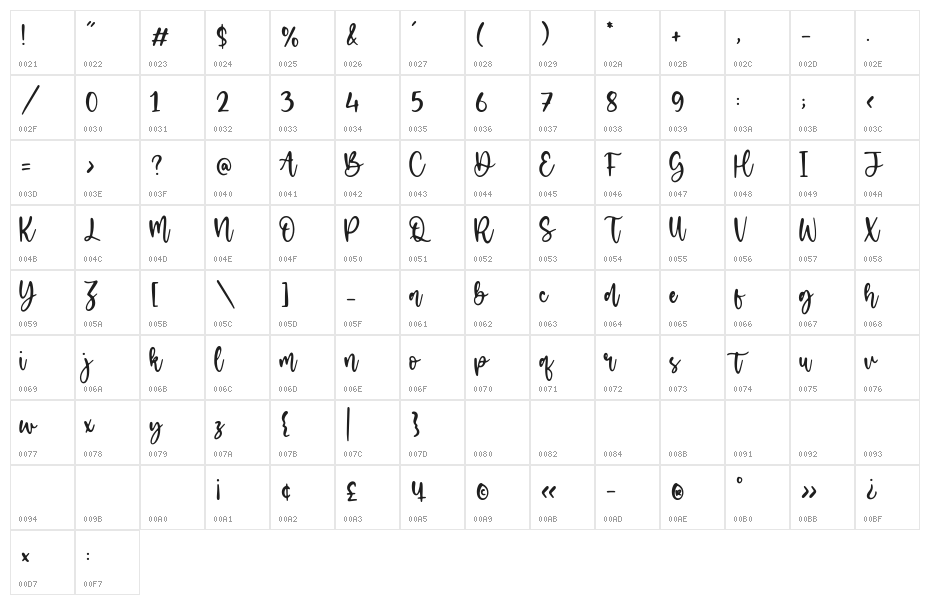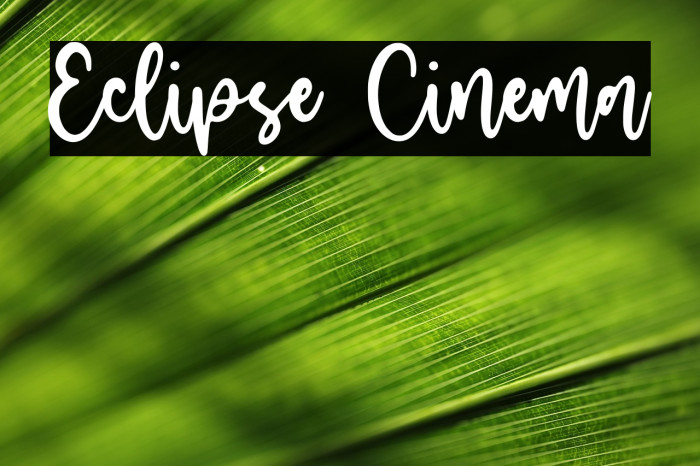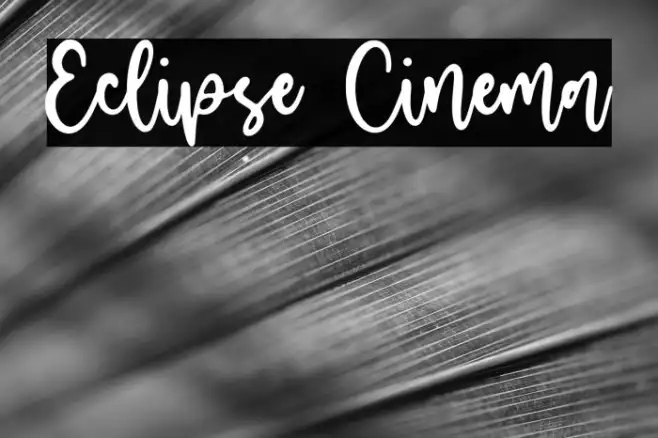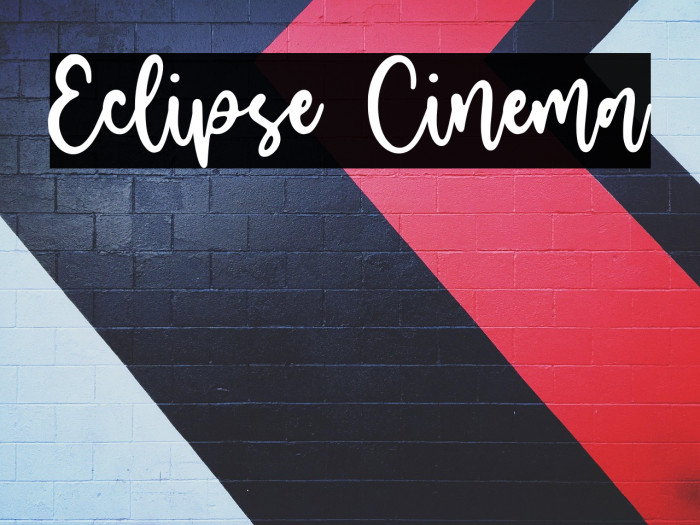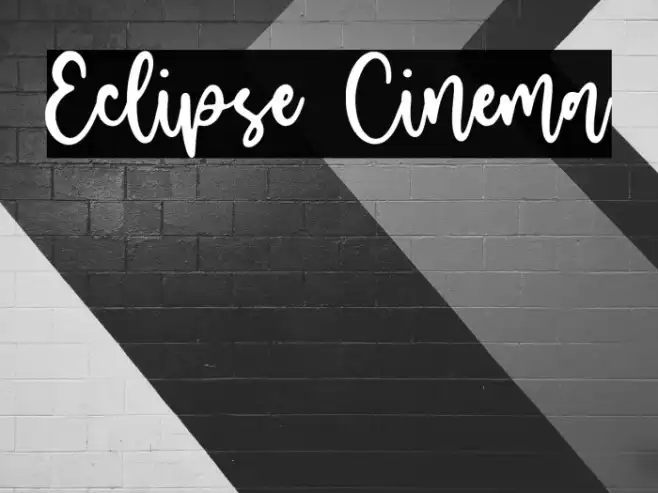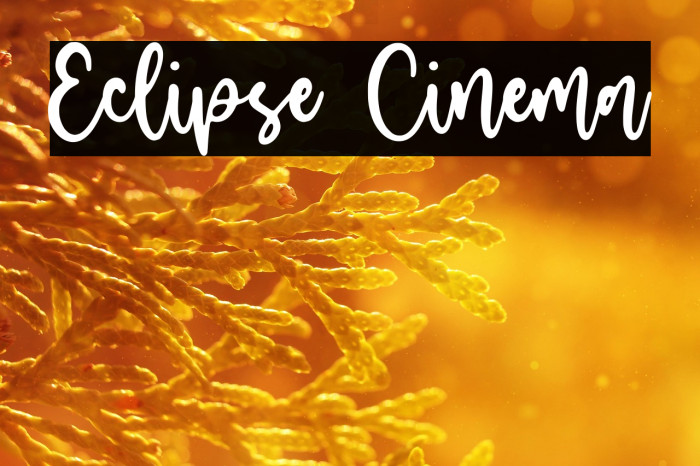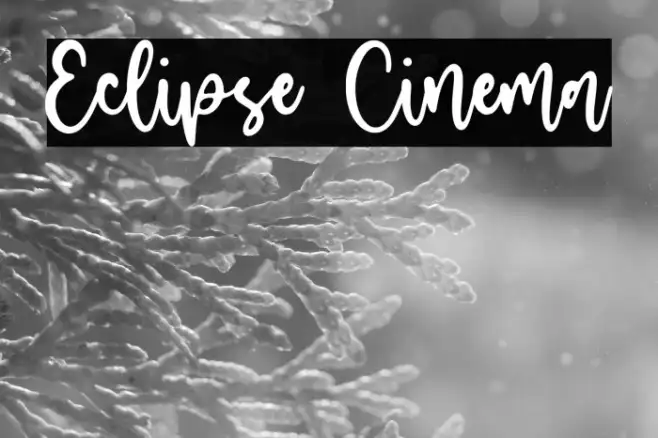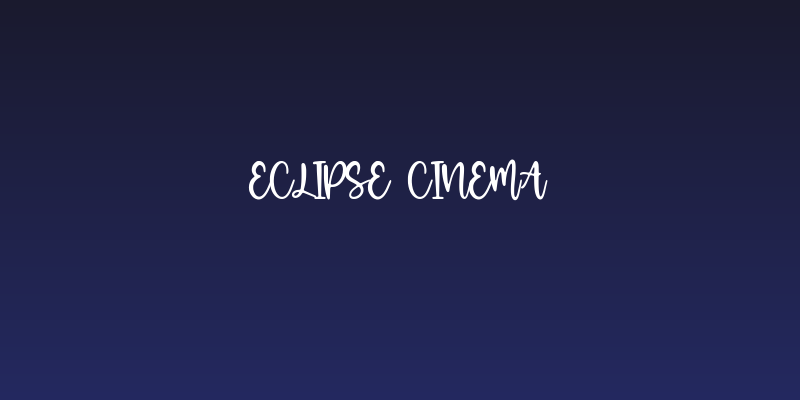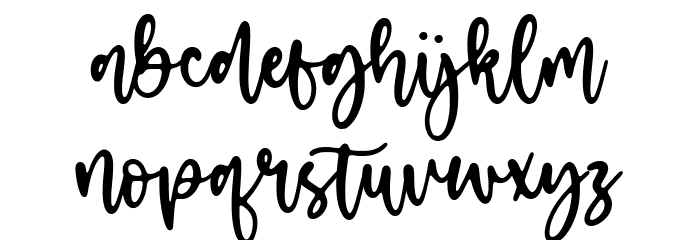
Eclipse Cinema Font
Eclipse Cinema Description
This font features a lively and flowing script style, characterized by its smooth, cursive strokes and playful loops. The uppercase letters are bold and expressive, with a slight slant that adds a dynamic feel. The lowercase letters maintain a consistent flow, enhancing readability while retaining an artistic flair. Numbers and special characters are crafted with the same attention to detail, ensuring a cohesive look across all elements. The overall design exudes a sense of elegance and creativity, making it suitable for projects that require a personal touch.